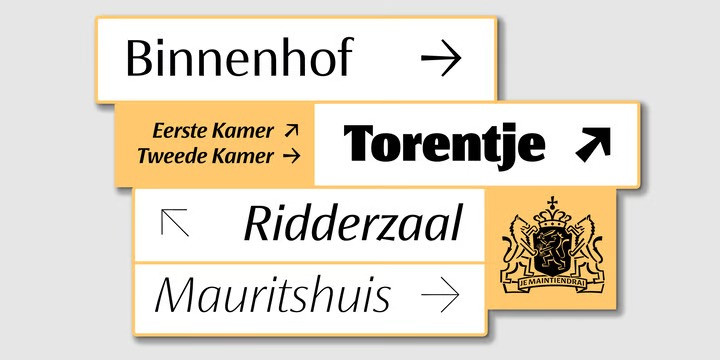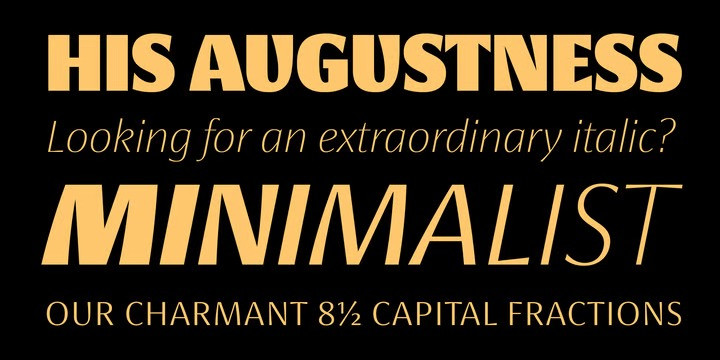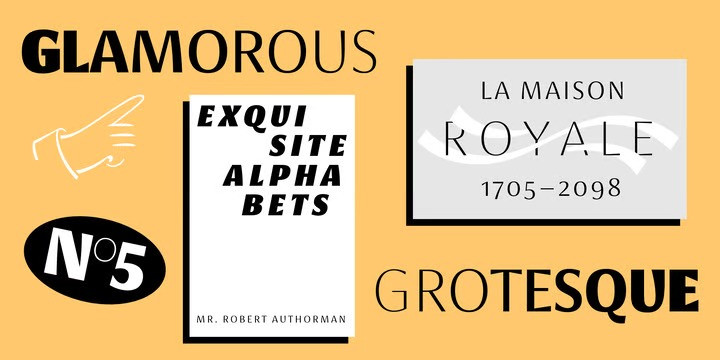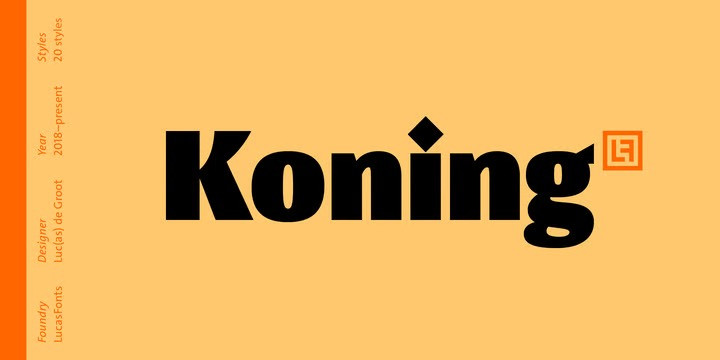
Koning Font Family
Koning Sans Serif Font is a contemporary sans serif font family manufactured by LucasFonts. Its characteristic feature is that it provides clear text at smaller sizes besides has a stulistic stance on screen sizes. Given the design’s elegance, this name should come as no surprise. It has been recognized with numerous awards: TDC Certificate of Typographic Excellence and Award of Excellence from Communication Arts both in 2018, and Gold from German Design Awards in 2020.